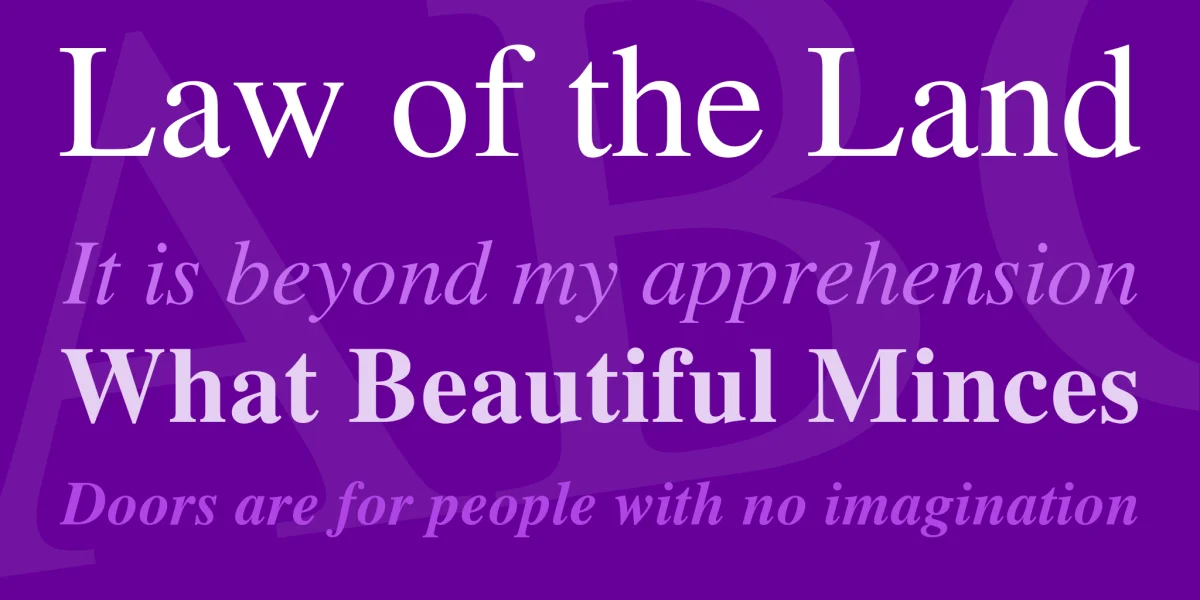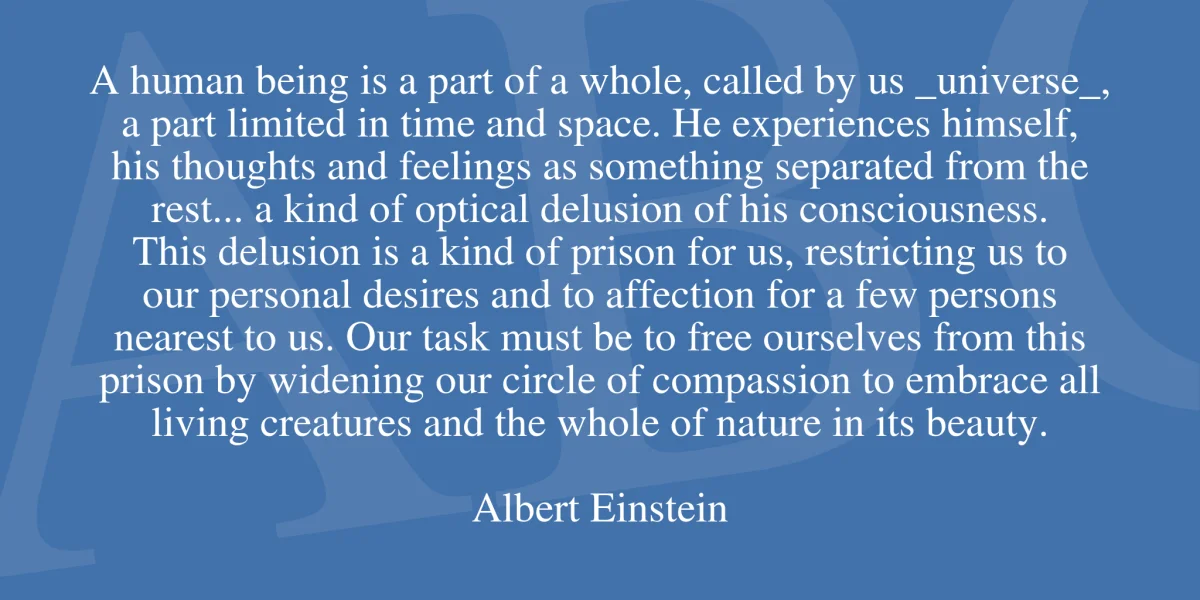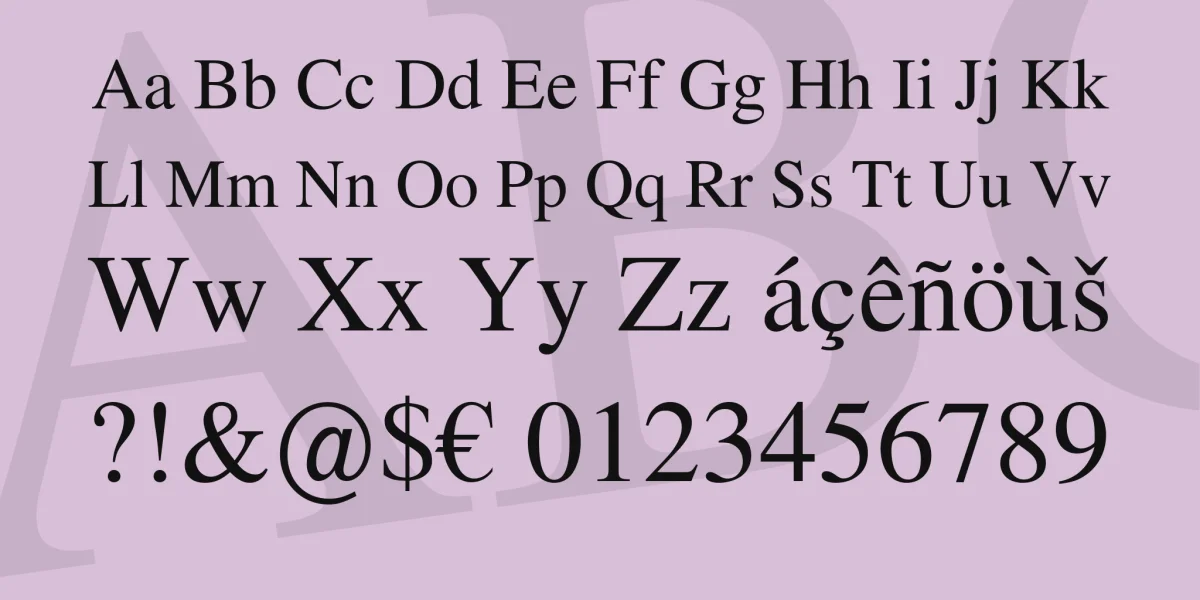
From Wikipedia: Nimbus Roman is a serif typeface created by URW Studio in 1982.
Nimbus Roman No 9 L is a serif typeface created by URW Studio in 1987, and eventually released under the GPL and AFPL (as Type 1 font for Ghostscript) in 1996 and LPPL in 2009. It features Normal, Bold, Italic, and Bold Italic weights, and is one of several freely licensed fonts offered by URW++.
Although the characters are not exactly the same, Nimbus Roman No 9 L has metrics almost identical to Times and Times New Roman. It is one of the Ghostscript fonts, a free alternative to 35 basic PostScript fonts (which include Times).
It is a standard typeface in many Linux distributions. It was used as default font in OpenOffice.org Writer in some Linux distributions (e.g. Ubuntu - up to version 8.10; since Ubuntu 9.04 the default font was changed to Liberation Serif).